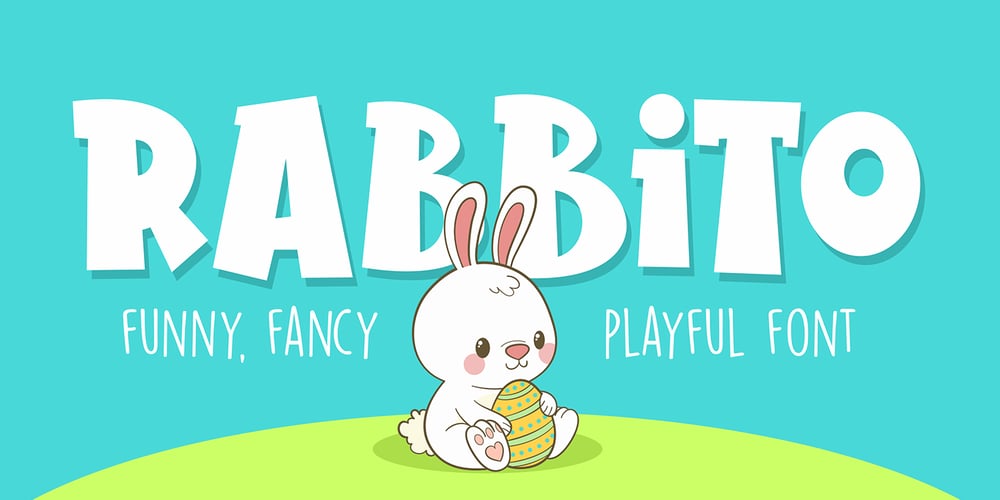
Rabbito
Rabbito font
Rabbito Font Family was designed by Icep Anwar Fadhil and published by Figuree Studio. Rabbito contains 1 styles and family package options. The Rabbito is a funny, fancy, and playful display font inspired by the cuteness of the rabbit. You can use this font for a logo, kids clothing, birthday invitation, poster, friendly design, fun design, book cover, adventure poster, outbound poster, and many many many others.Thank You